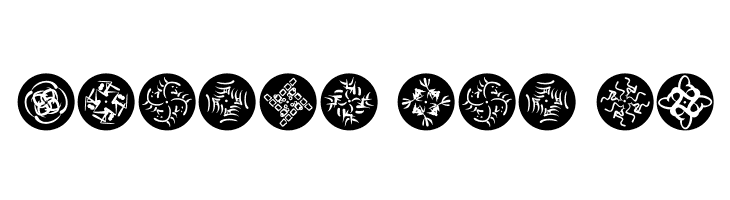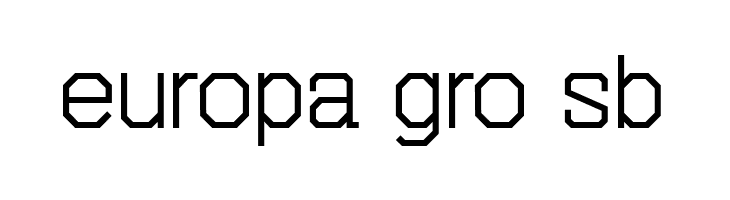
• Nyooo Oblique
• Octovetica Free
( Fonts by Guillaume )
A geometric, octagonal font with a modern and technical style.
• Odalisque NF
An elegant, high-contrast decorative font with intricate details.
• OdalisqueNF
A high-contrast, elegant serif font with decorative elements.
• Officer X
• Oh Ashy
• OhRosetta
Abstract, ornamental symbols with intricate, decorative designs.
• OhRosettaDiscus
Abstract, hand-drawn circular symbols with intricate white linework.
• Oil Age Heiroglyphs
• Oklahoma